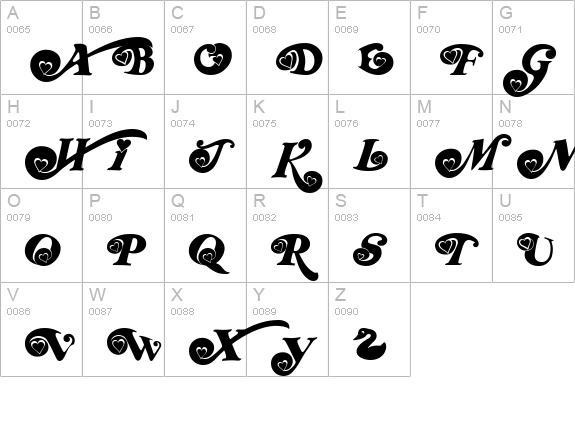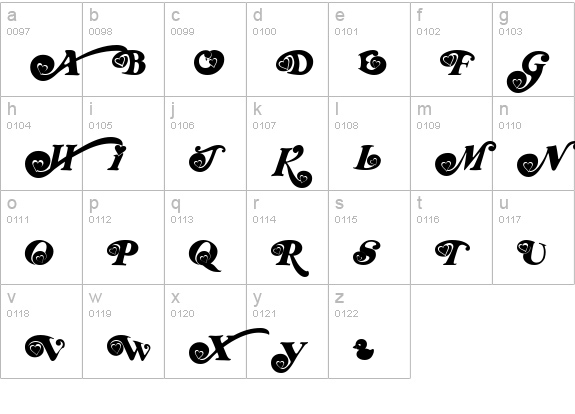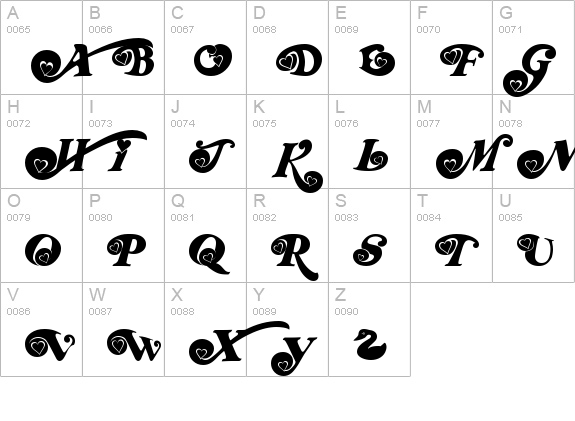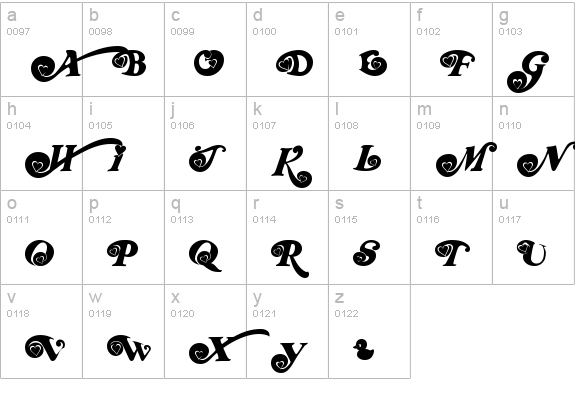
RDHoney Font Details
RDHoney font is a delightful and whimsical typeface that will add a touch of sweetness to any design project. With its playful and hand-drawn letterforms, this font exudes a sense of warmth and charm. The unique and intricate details of each character make it perfect for creating eye-catching headlines, logo designs, or decorative elements. What sets RDHoney font apart is not only its beautiful aesthetics but also its accessibility. This font is freely available to download at FontsMarket.com, where designers of all levels can easily access it without any cost. Whether you are a professional graphic designer or an aspiring artist, this font allows you to add a touch of magic to your creations without breaking the bank. With RDHoney font, the possibilities are endless. Its versatility allows it to be used in a variety of design projects, from branding and packaging to invitations and social media posts. Its handwritten style adds a personal and authentic feel to any design, making it perfect for projects that require a unique and organic touch. Whether you are designing a logo for a boutique bakery, creating a whimsical greeting card, or adding a playful touch to a children's book, RDHoney font is the perfect choice. Its free availability ensures that you can unleash your creativity without any restrictions, allowing you to explore and experiment with this delightful typeface. Experience the sweetness and charm of RDHoney font today by downloading it for free at FontsMarket.com. Let your imagination run wild and infuse your designs with a touch of magic using this enchanting typeface.